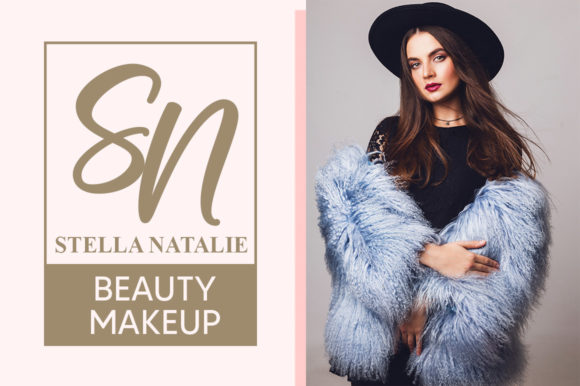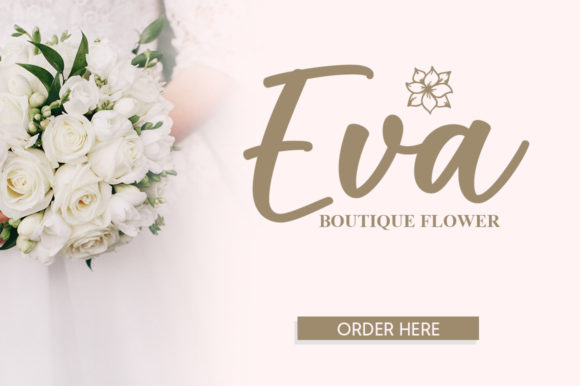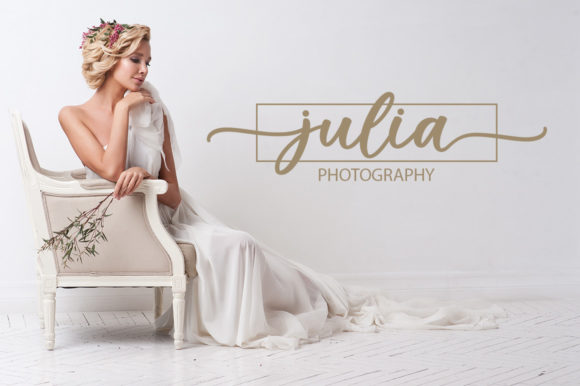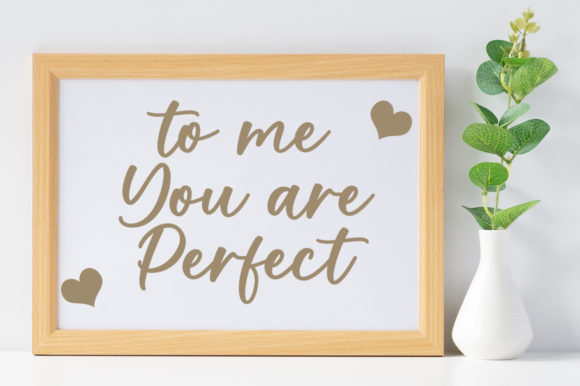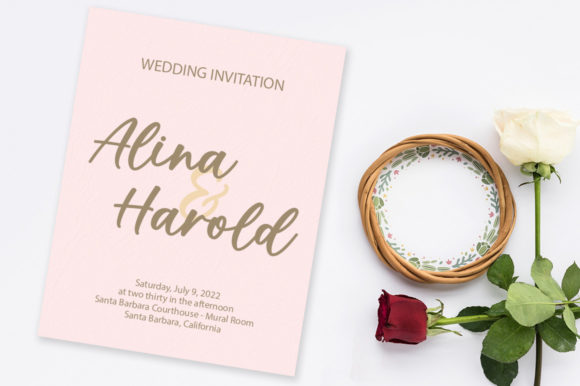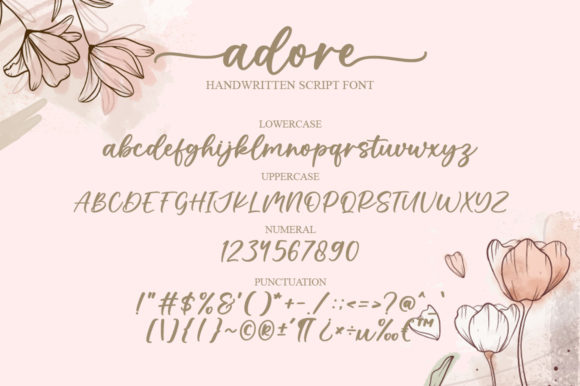
I’ll never forget the time I was working on a project for a client who wanted a elegant and sophisticated look. I had spent hours scouring the internet for the perfect font, but nothing seemed quite right. That was until I stumbled upon Adore Font. It was like a breath of fresh air – delicate, elegant, and flowing, it had all the qualities I was looking for. In this article, I’ll share my experience with Adore Font, and provide a comprehensive guide on how to use it to elevate your designs.
Adore Font: A Delicate Beauty
Adore Font is a beautiful, handwritten font that exudes elegance and sophistication. Its well-balanced characters make it versatile and suitable for a wide range of designs. One of the standout features of Adore Font is its PUA encoding, which allows you to access all the glyphs and swashes with ease. This means you can get creative with your designs and add a personal touch.
- ✨ Delicate and elegant design
- ✅ Well-balanced characters
- 🎉 PUA encoded for easy access to glyphs and swashes
- 💻 Highly versatile and suitable for a wide range of designs
While Adore Font is an excellent choice, there are a few things to keep in mind. For example, ⚠️ some users may find the font a bit too delicate for certain designs, and 🤔 it may not be the best choice for very large or bold text.
The Designer Behind Adore Font
While the true story behind Adore Font remains a mystery, it’s easy to imagine that it was created by a designer who appreciates the beauty of handwritten typography. Perhaps the designer was inspired by the flowing scripts of the past, and sought to create a font that would bring elegance and sophistication to modern designs.
A: PUA (Private Use Area) encoding is a way of encoding fonts that allows designers to access additional characters and glyphs. In the case of Adore Font, PUA encoding makes it easy to access the font’s beautiful swashes and glyphs.
Q: Is Adore Font suitable for large text?
A: While Adore Font is a beautiful font, it may not be the best choice for very large text. The font’s delicate design may become lost at larger sizes, so it’s best to use it for smaller text, such as headings or body copy.